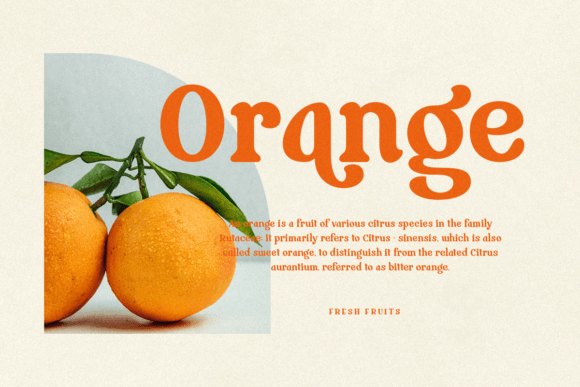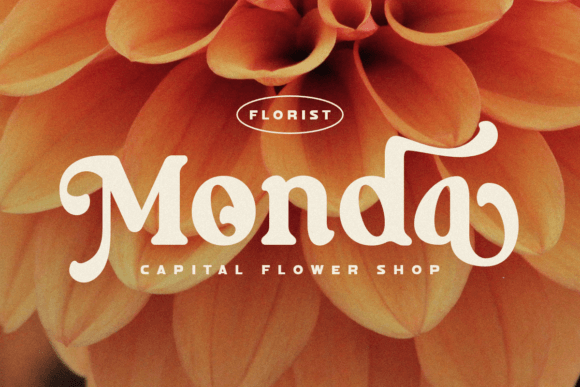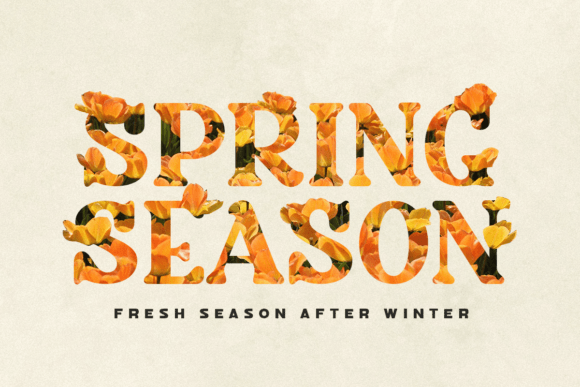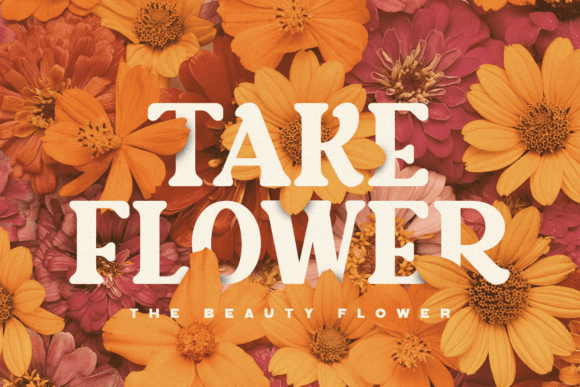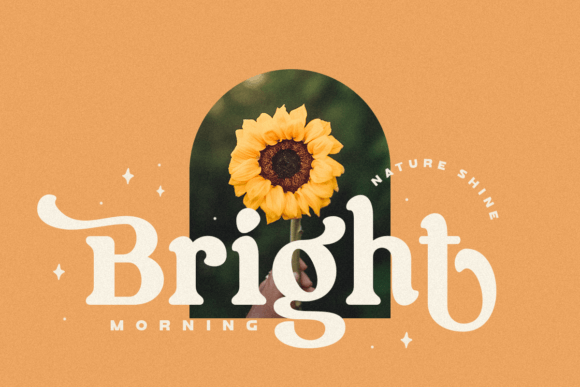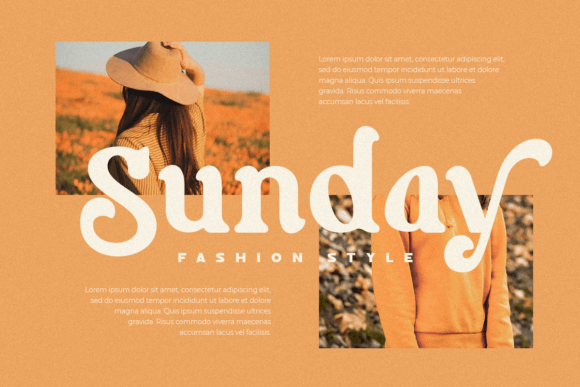
Introduction to Kamal Font
Introducing Kamal: a fun, retro display font that channels the vibrant energy of yesteryears.
With bold, chunky letterforms and quirky embellishments, it’s perfect for eye-catching headlines, posters, and branding with a nostalgic twist Add a dose of playful nostalgia to your designs with Kamal.
Key Features of Kamal Font